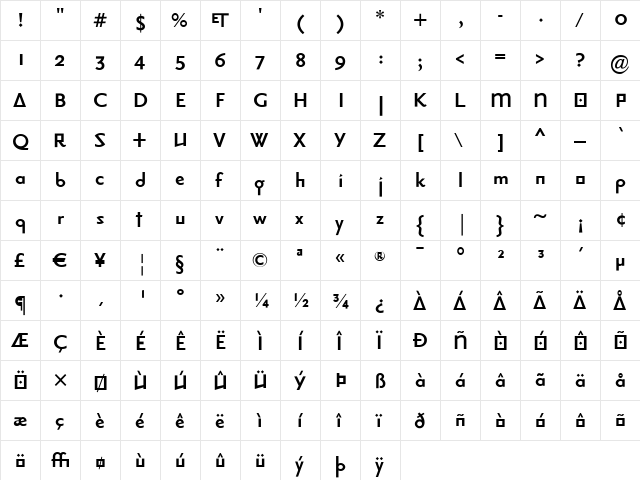
Priori Sans Bold
Design Context for Priori Sans Typeface
Priori Sans offers clean, dependable letterforms without strong stylistic allegiance, making it a practical choice for designers who need flexibility. The heavy weight commands attention and anchors typographic hierarchies.